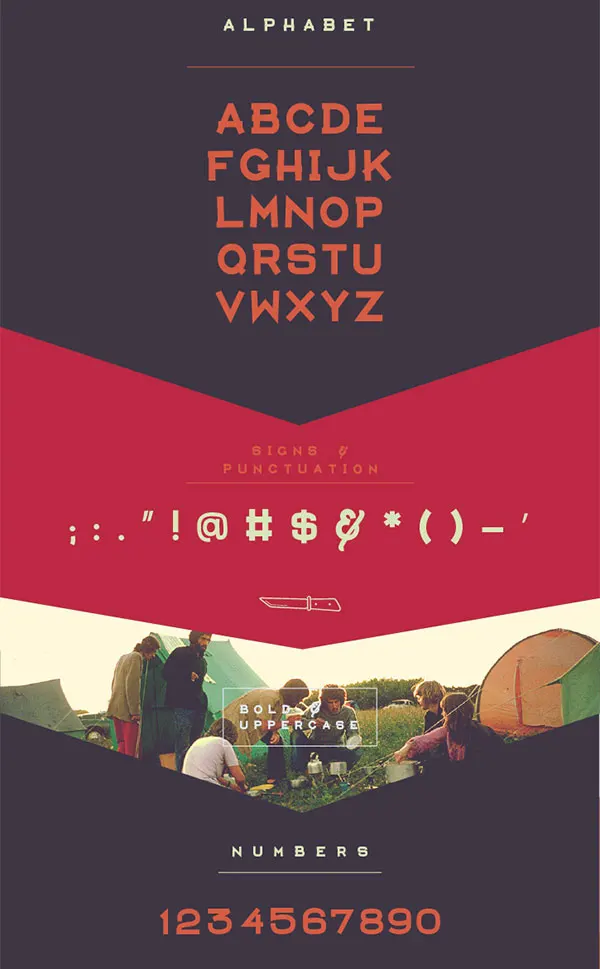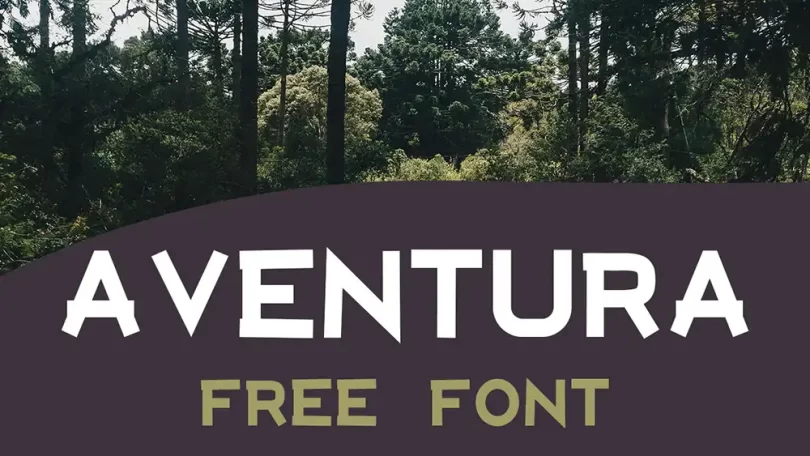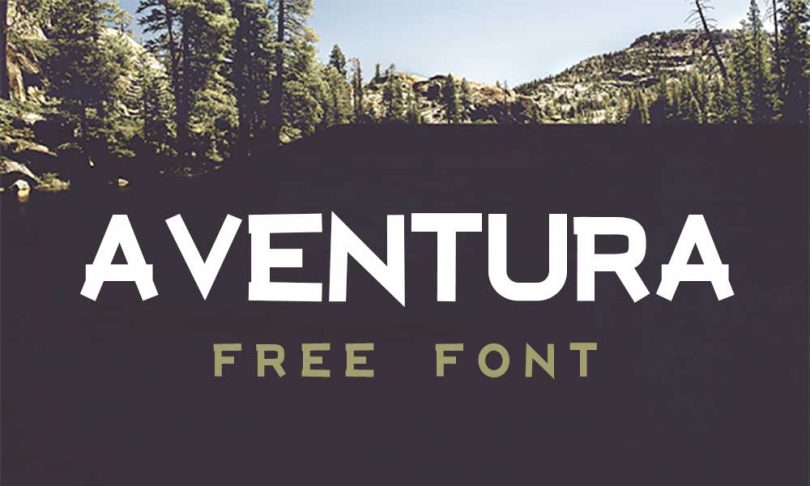
Aventura is a free typeface good for book titles, posters and other graphic designs for great attraction. Traveling and adventure industry can take advantage of using Aventura font to make their brochures and flyers quite interesting.The font is available in only upper case letters and bold style. Aventura font is free for commercial and personal use.